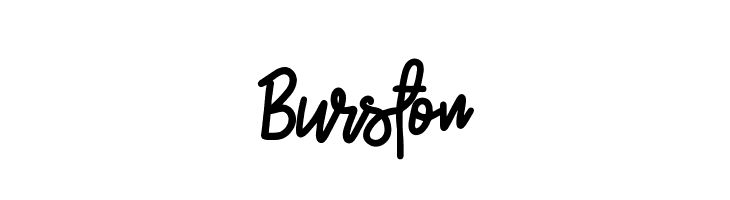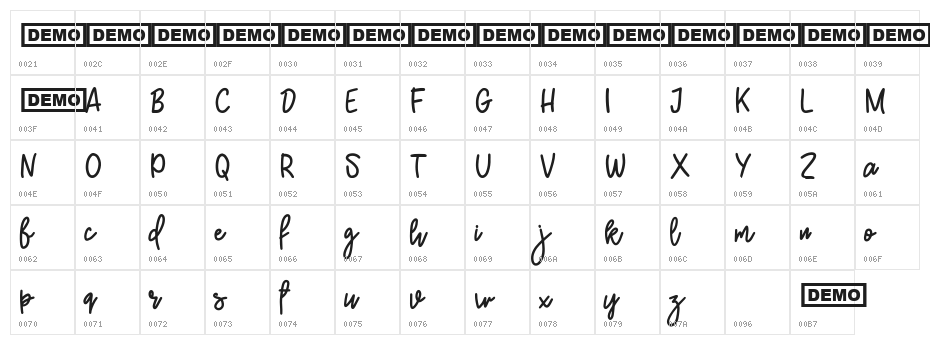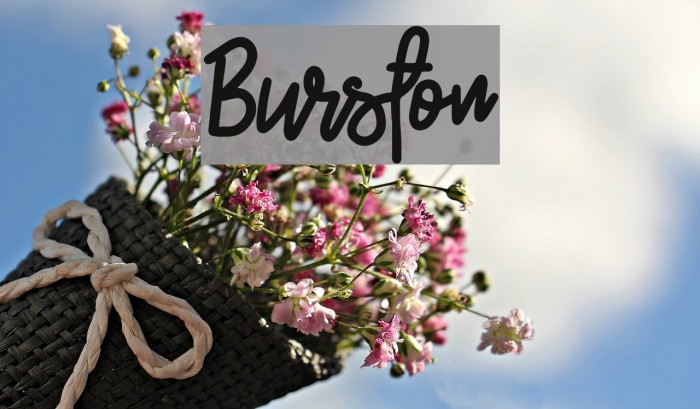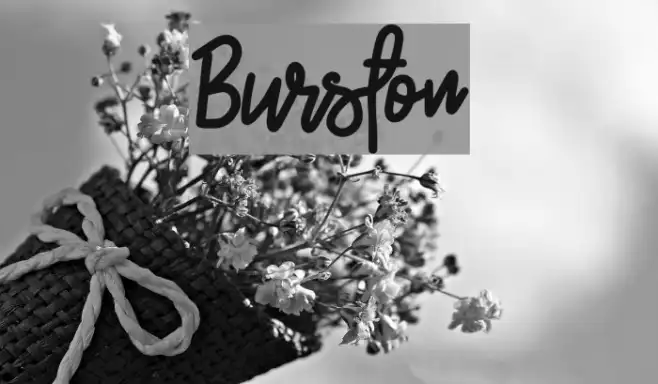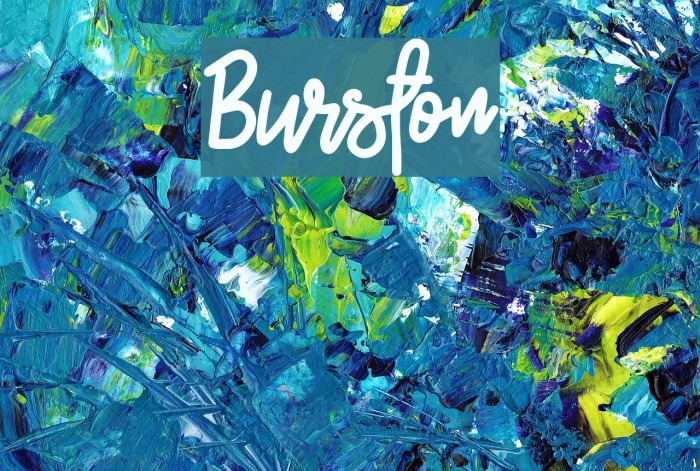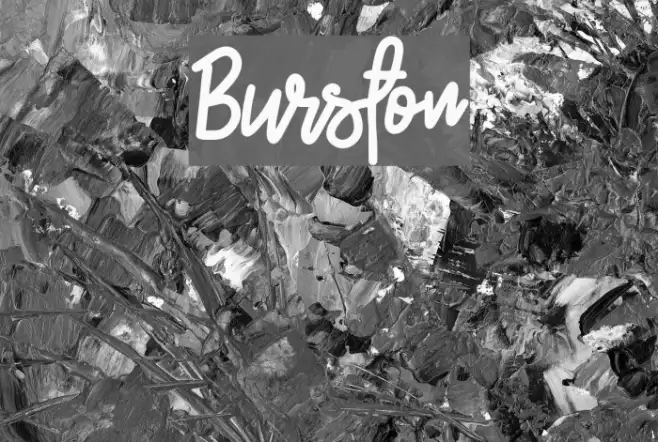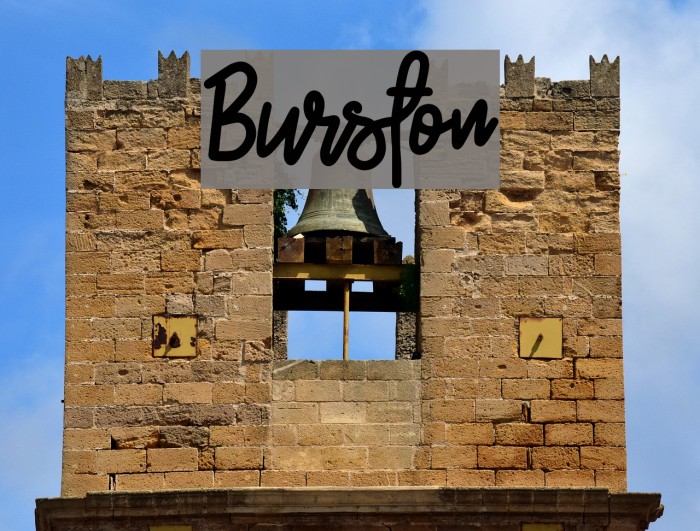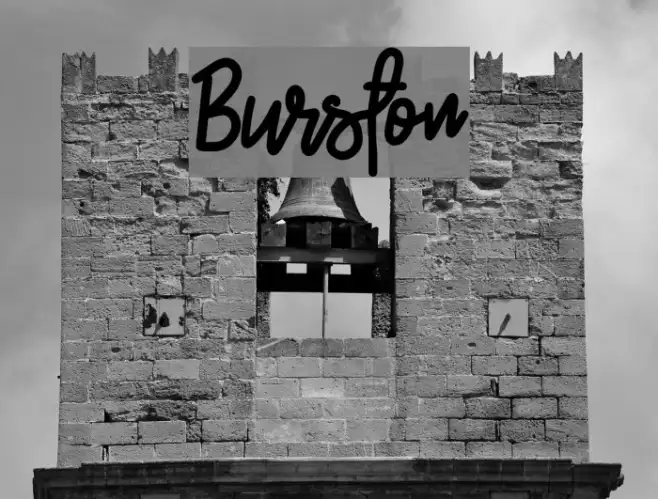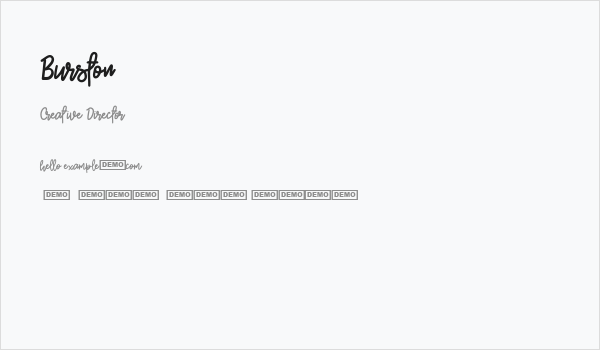
Burston Font
This font features a playful and energetic handwritten style, characterized by its fluid and dynamic strokes. The uppercase letters are bold and slightly condensed, with a casual flair that adds personality to any text. The lowercase letters maintain a consistent flow, with some letters featuring unique loops and swirls that enhance the font's charm. The numbers and special characters are crafted to match the overall aesthetic, ensuring a cohesive look across all text. This font is ideal for projects that require a touch of whimsy and creativity.
A playful handwritten font with dynamic strokes and a casual flair.
• Proposed Projects: Great for greeting cards, invitations, posters, and social media graphics.
• Category: Handwritten
• Weight: Bold
• Width: Condensed
• Character Spacing: Normal
• Contrast: Medium
• Overall Style: Decorative
• Use Case: Headlines, Logos, Invitations